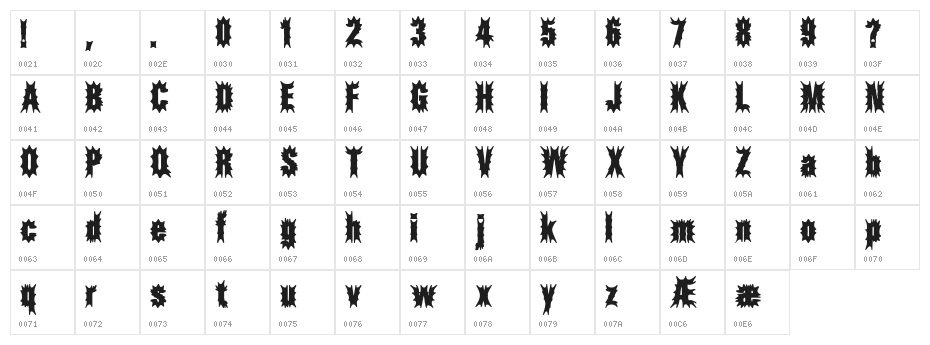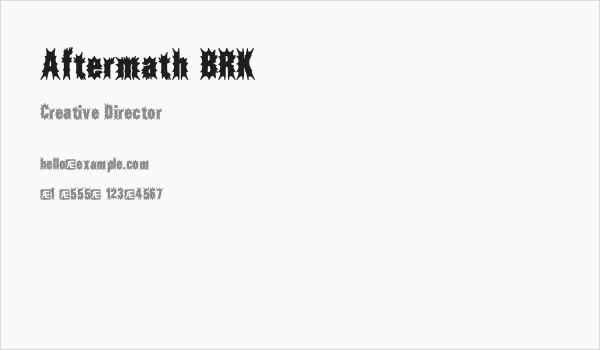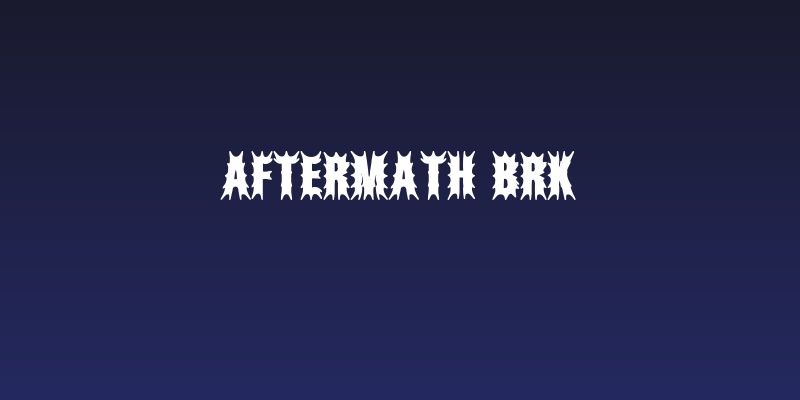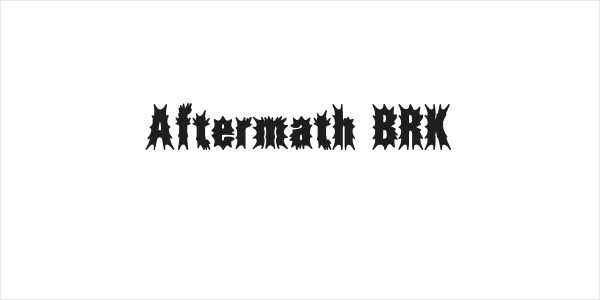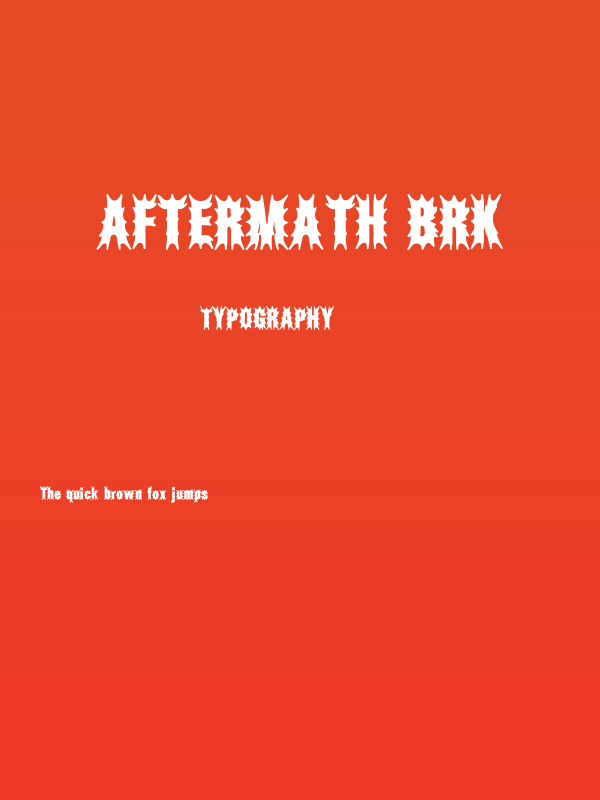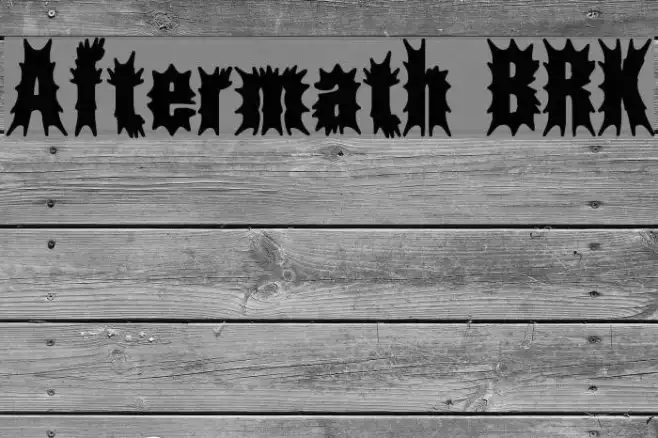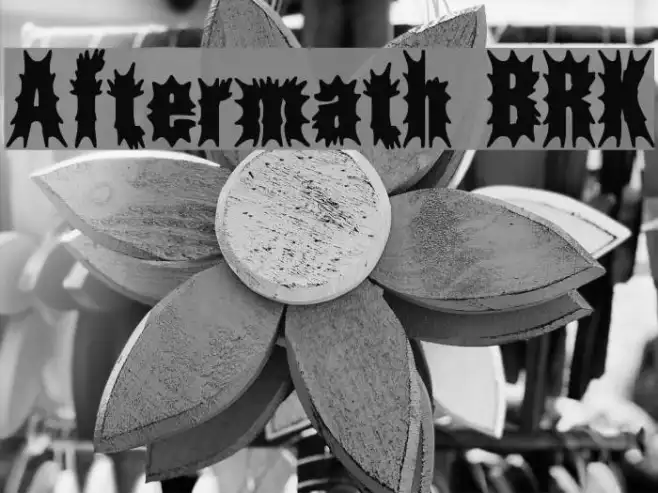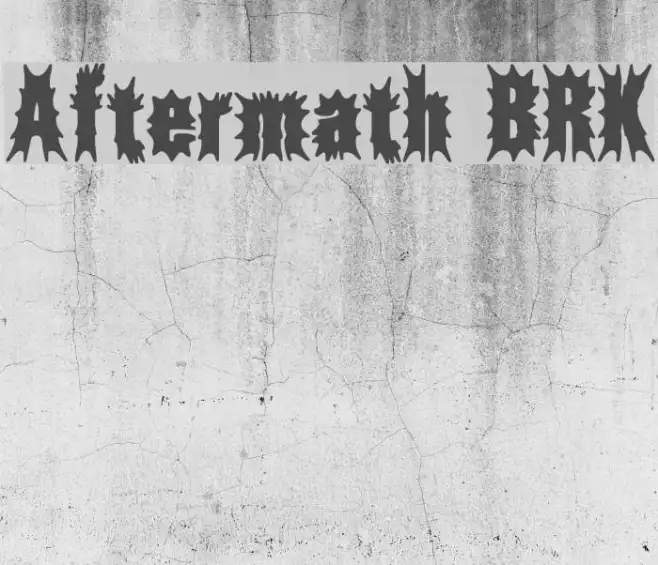
Aftermath BRK Font
Aftermath BRK Description
This font features a bold and jagged design, reminiscent of sharp, thorn-like edges. Each character is uniquely crafted with an aggressive and dynamic appearance, making it stand out with its intense visual impact. The uppercase and lowercase letters maintain a consistent style, with exaggerated spikes and a heavy weight that conveys a sense of power and intensity. The numbers and special characters follow the same aesthetic, ensuring uniformity across all glyphs. This font is ideal for projects that require a dramatic and eye-catching typeface.
| Proposed Projects | Ideal for horror-themed posters, edgy branding, album covers, and Halloween decorations. |